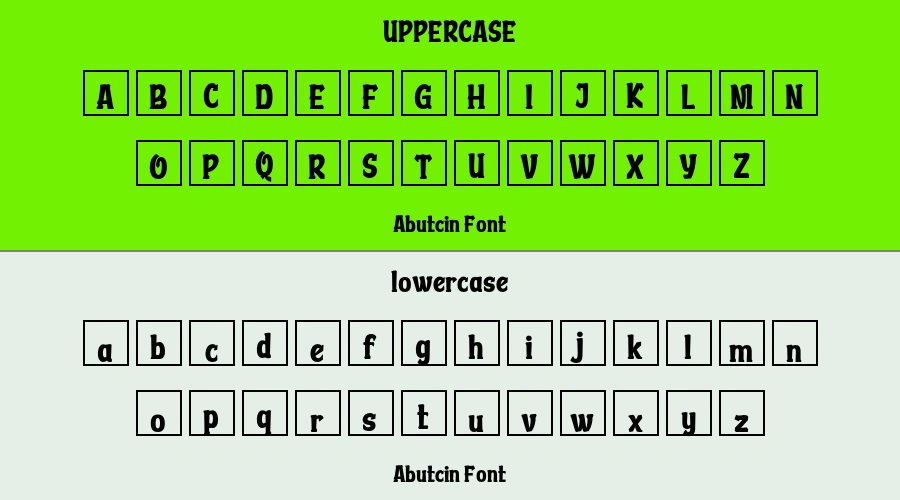
About Abutcin Font
Abutcin Font represents a sophisticated approach to type design, balancing dynamic forms with memorability. Perfect for presentation decks, this font family showcases impressive durability and market relevance throughout its character set. Designers appreciate its versatility and reliability.
Designers will appreciate nuanced touches including organic curves and initial forms, adding sophistication to any project. These features become apparent in compliance seals, where detail preservation matters most. The careful treatment of proportion and market position ensures optimal performance.